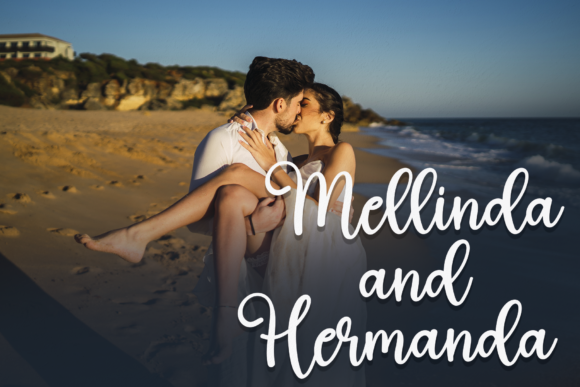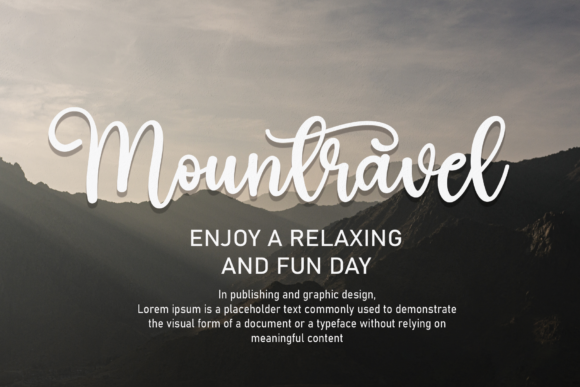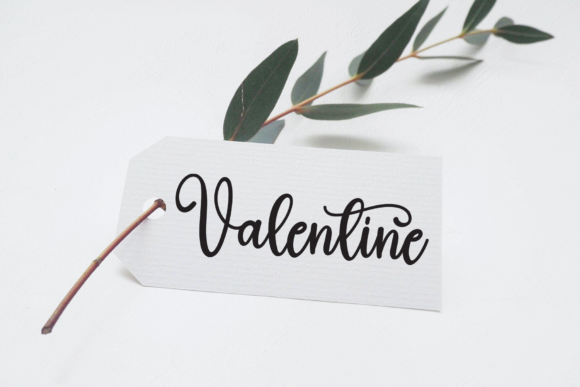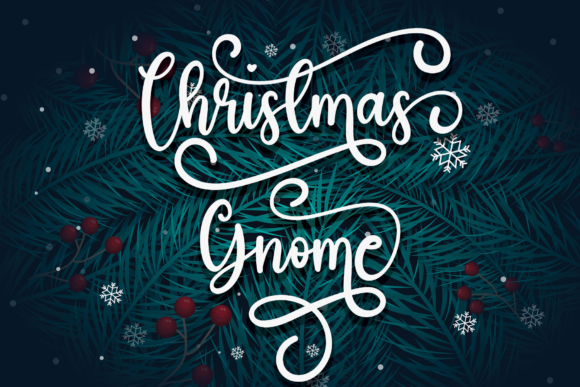
Introduction to Christmas Gnome Font
Christmas Gnome is a lovely and timeless handwritten font.
It is the best choice for creating eye catching logos, branding and quotes This font is PUA encoded which means you can access all of the glyphs and swashes with ease.
Christmas Gnome Font offers exceptional quality and versatility, making it a valuable addition to your design toolkit. Whether you’re creating for personal projects or commercial use, Christmas Gnome Font delivers professional results.